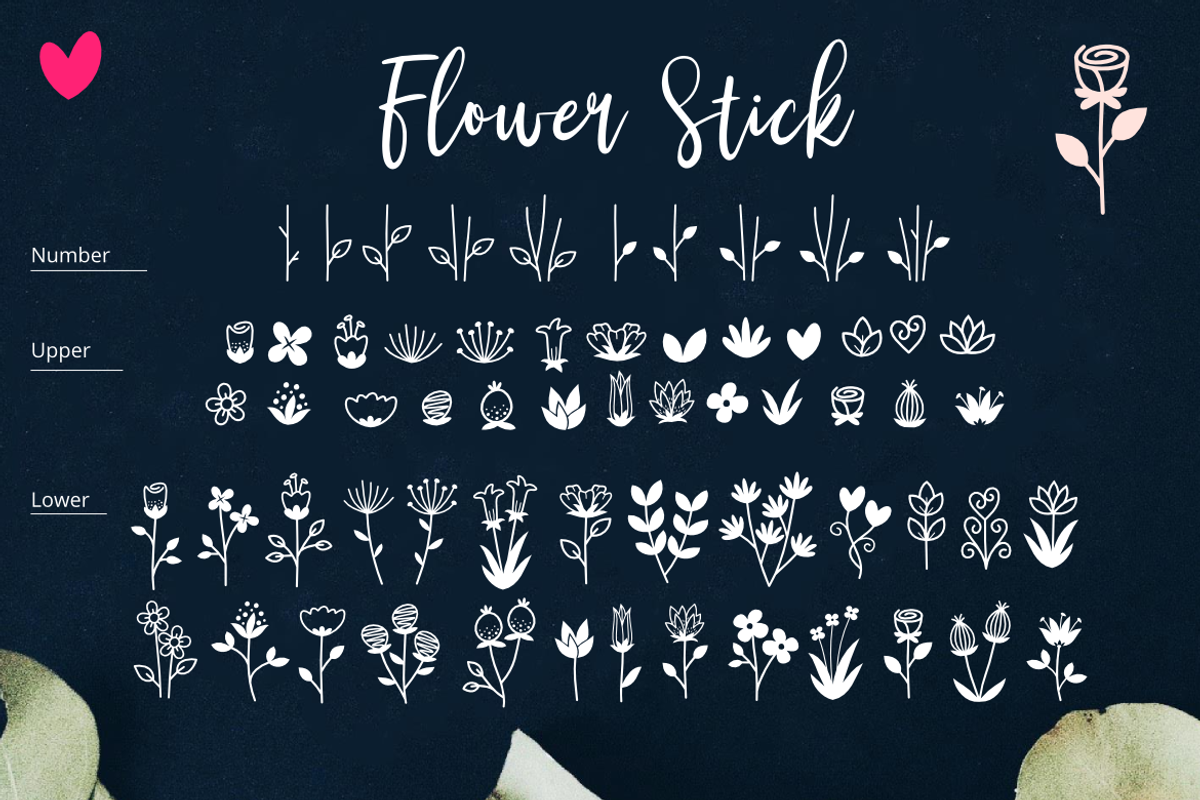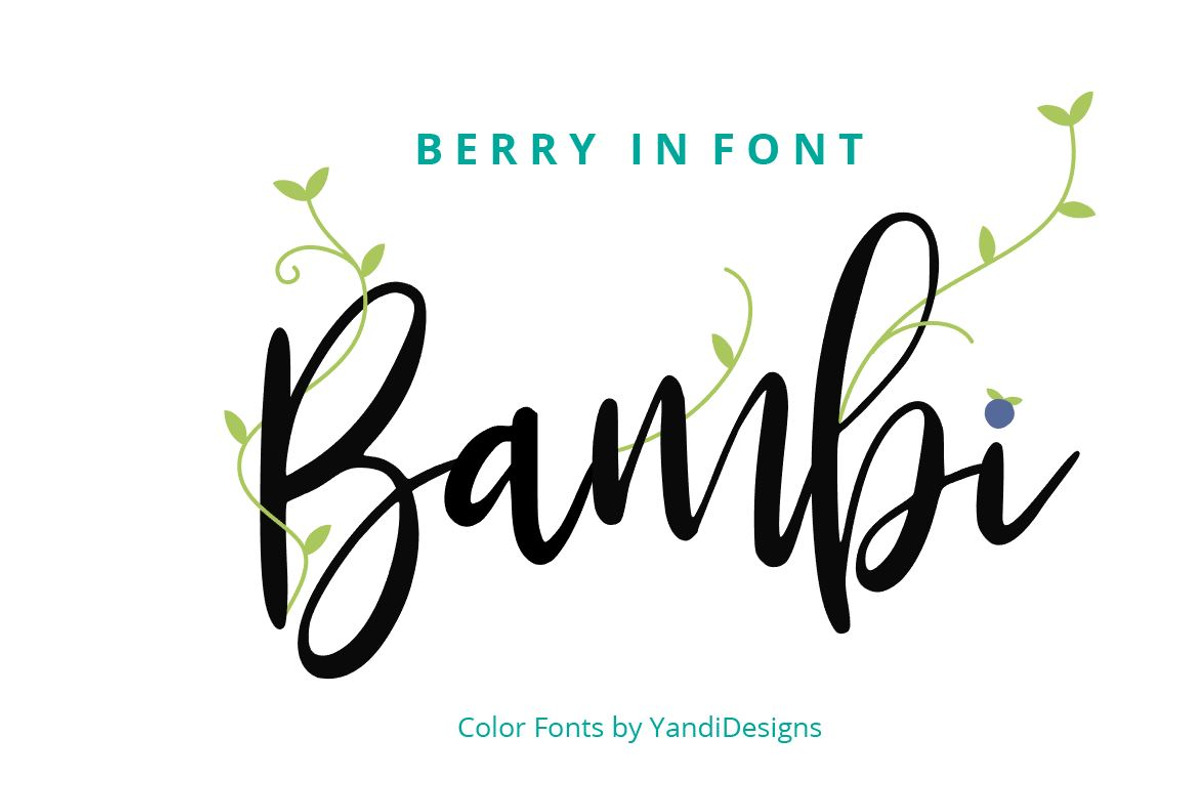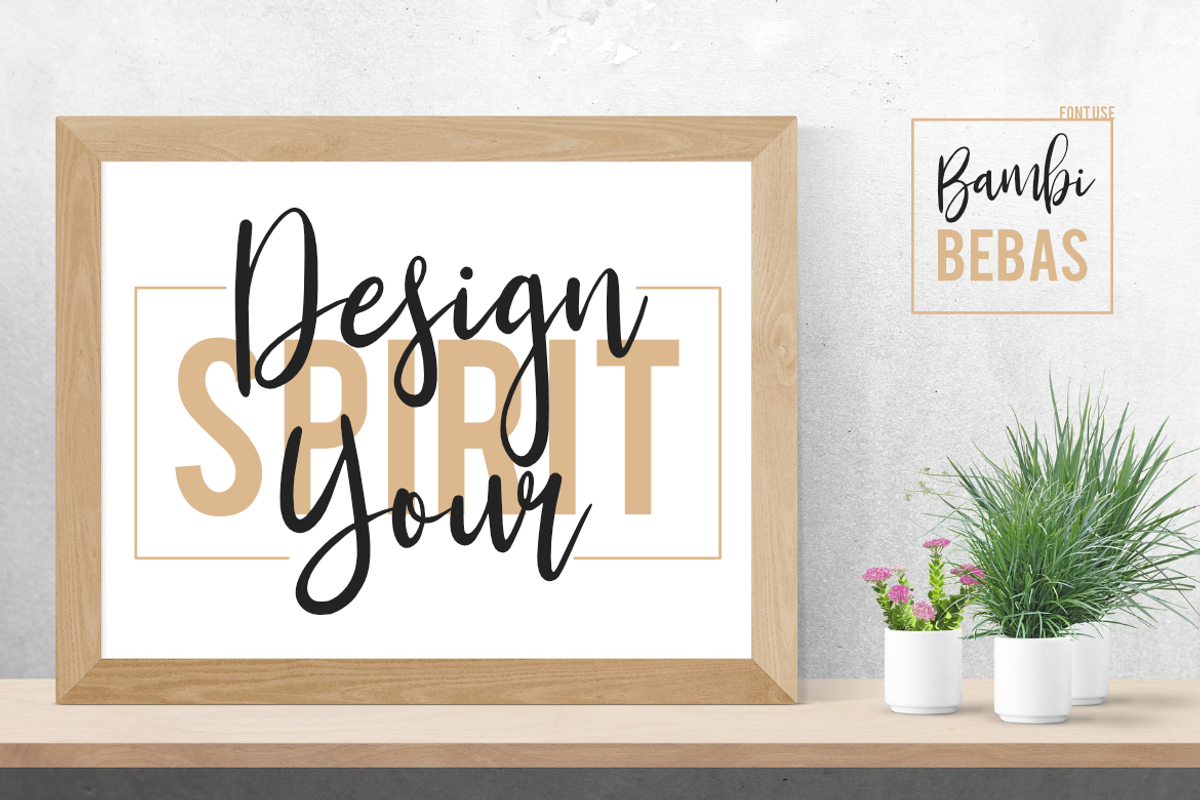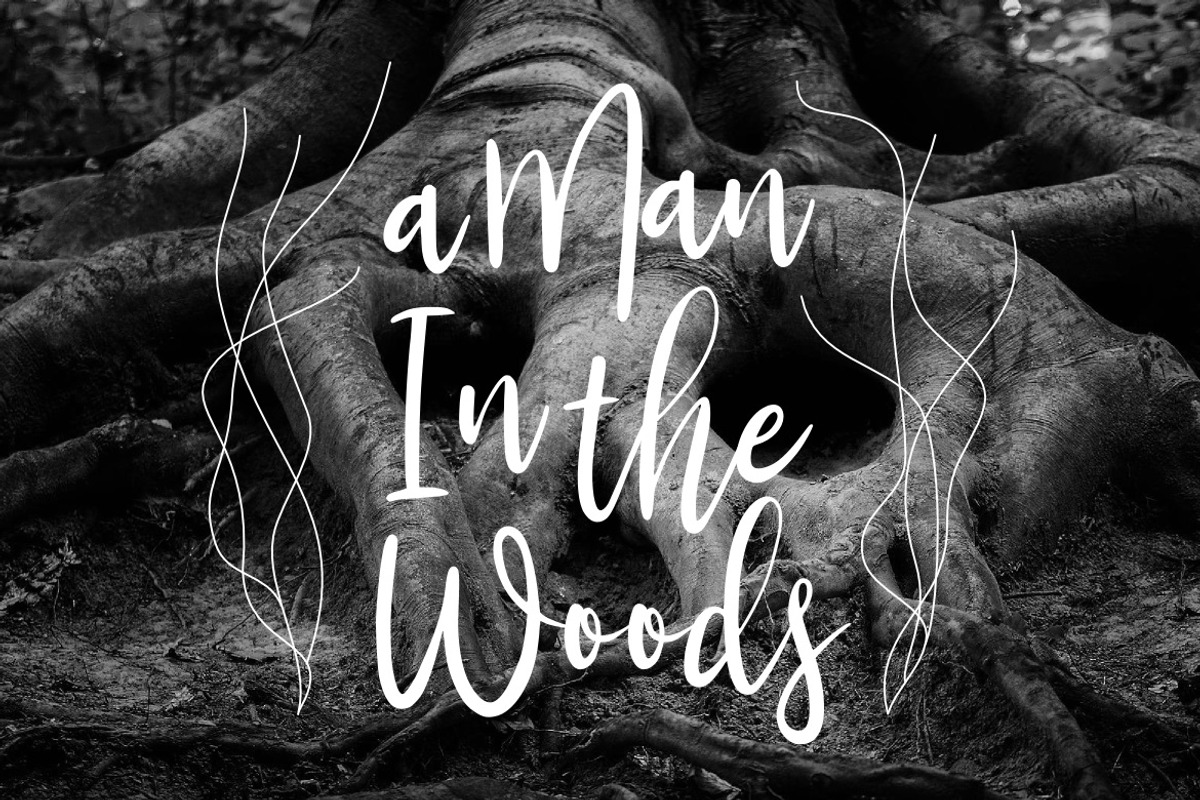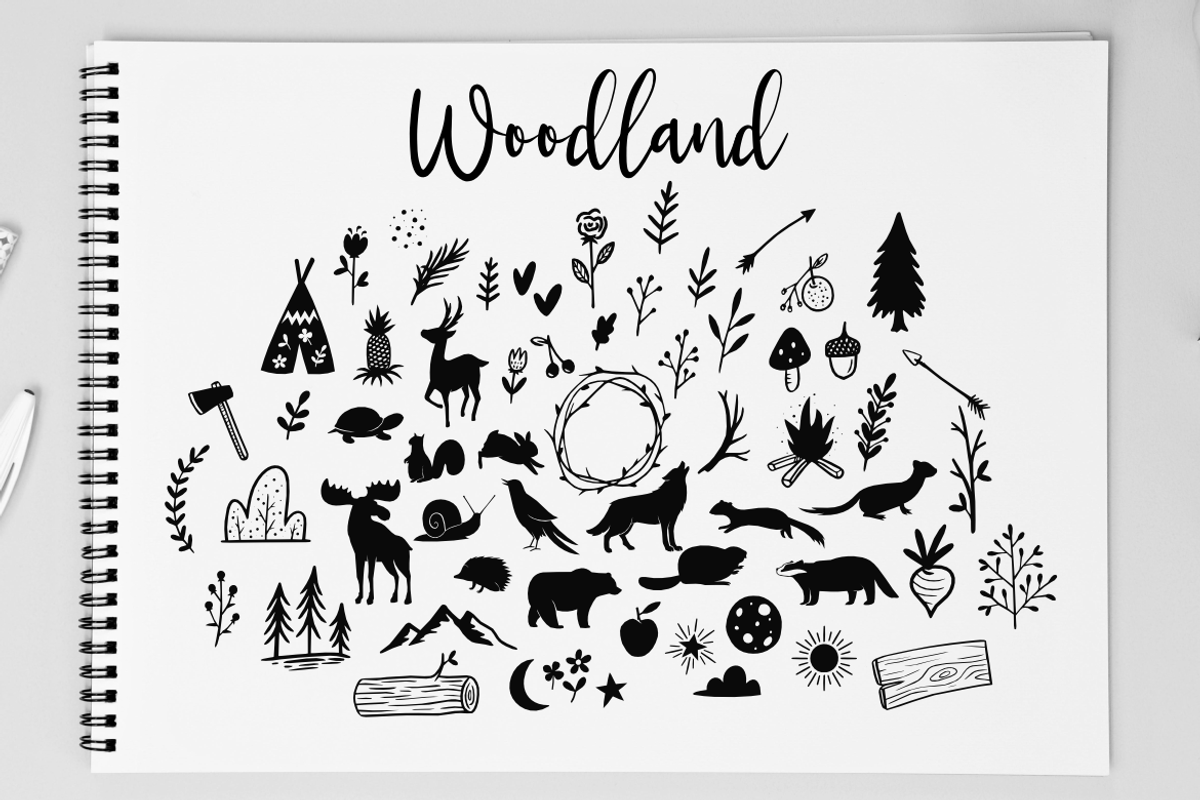
Bambi Font
Modern and calm font , suitable for many project , quotes, logo , doodle, heading , title etc.
Why Bambi Font is worth a look
Bambi Font by YandiDesigns fits naturally into Branding, posters, packaging, typography.